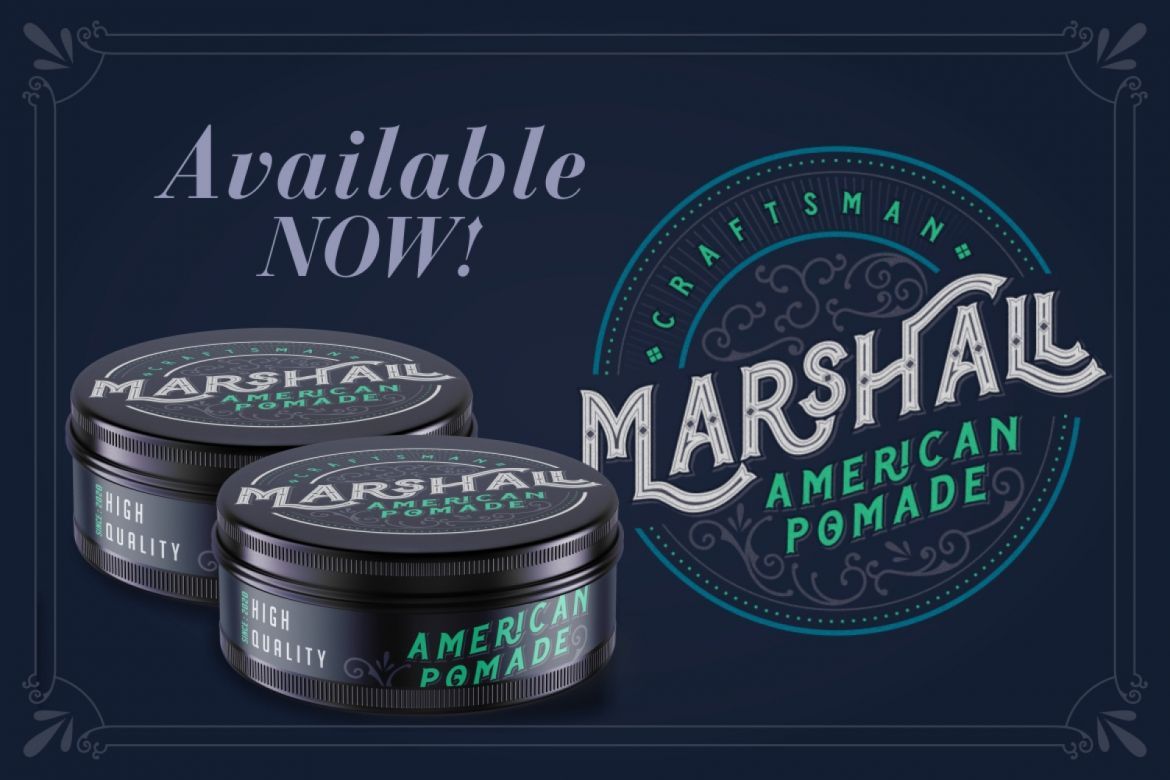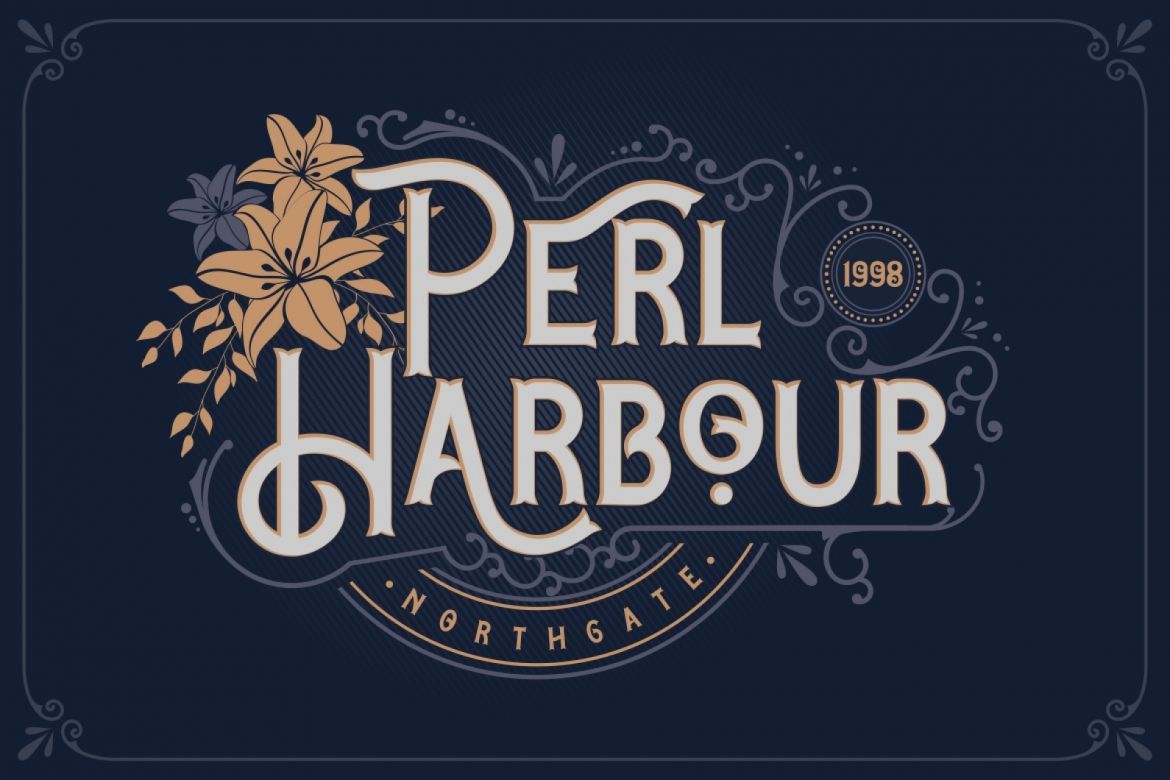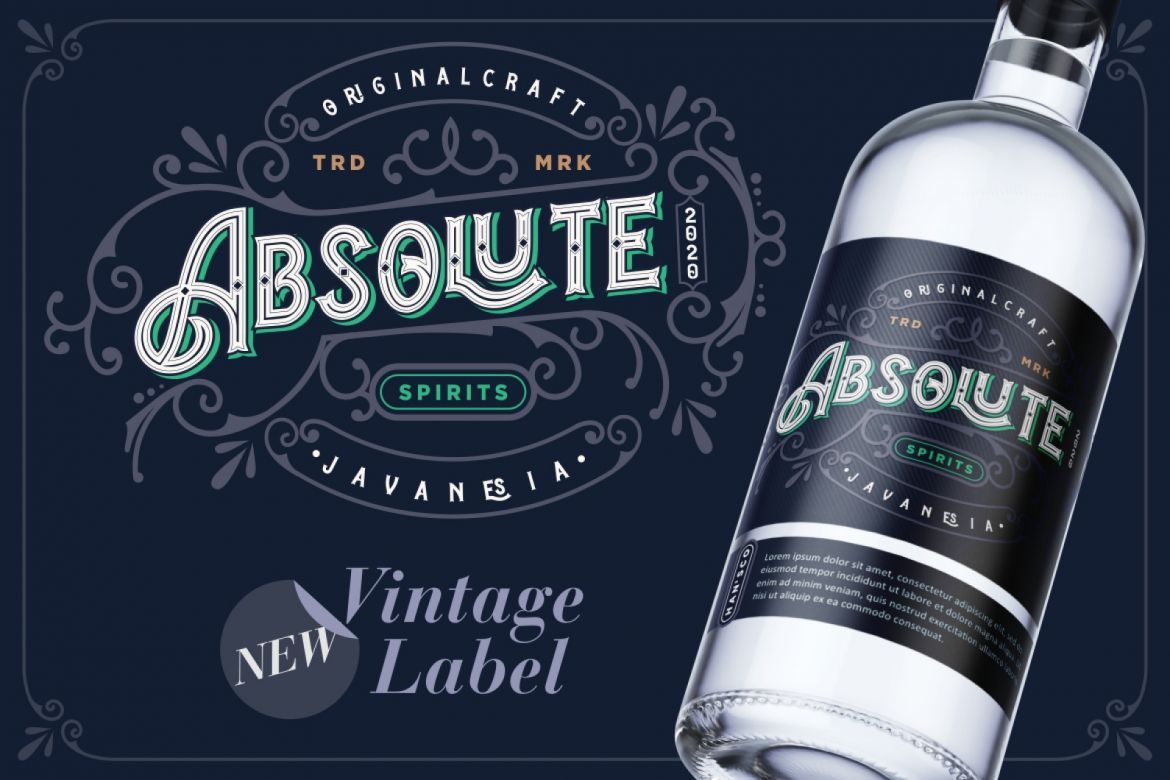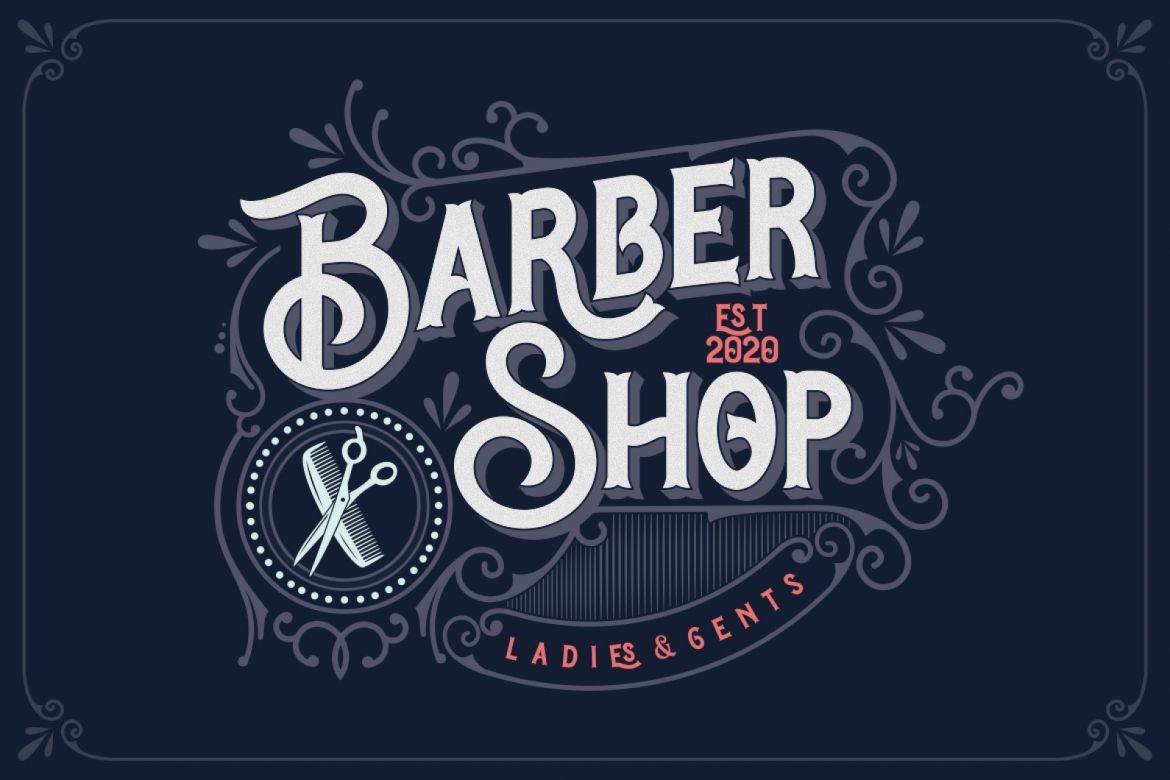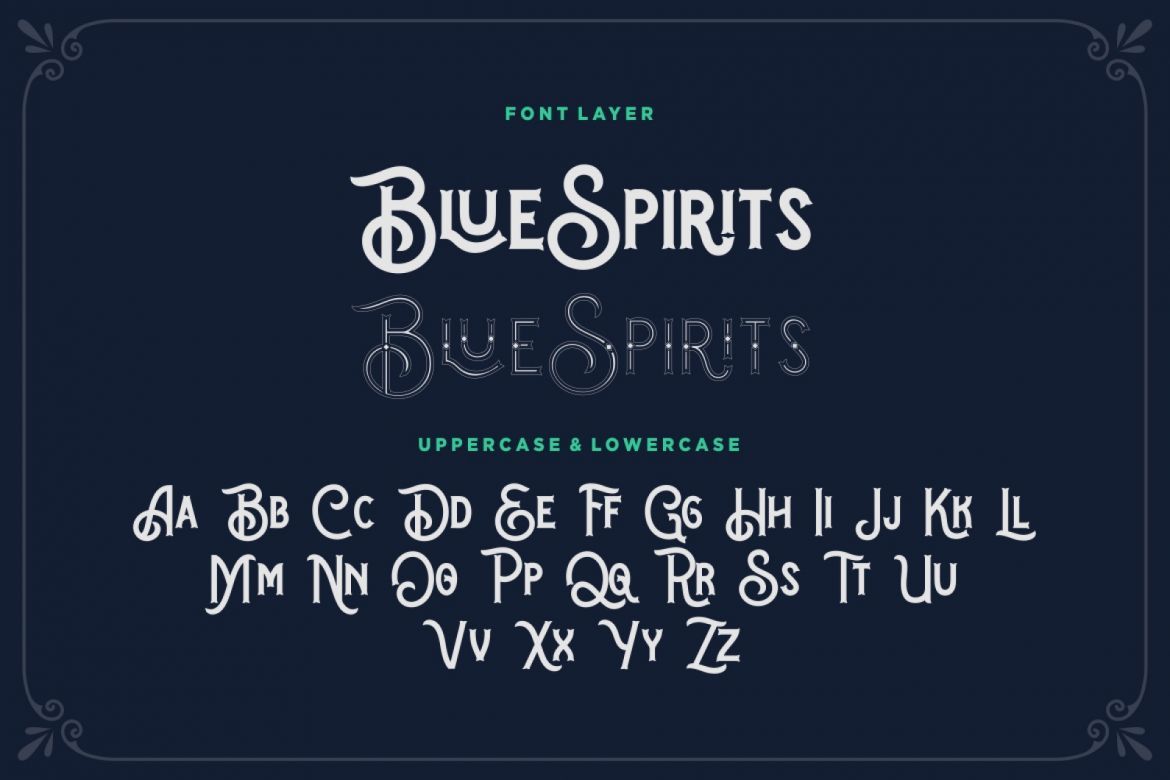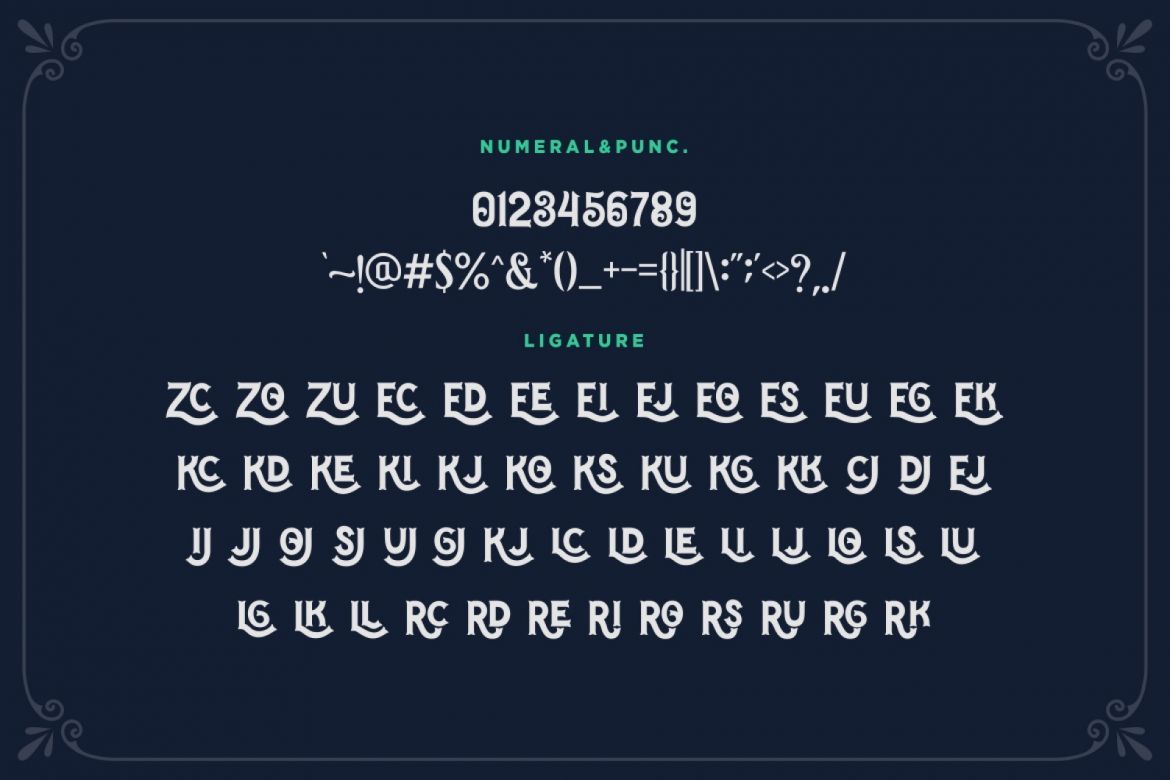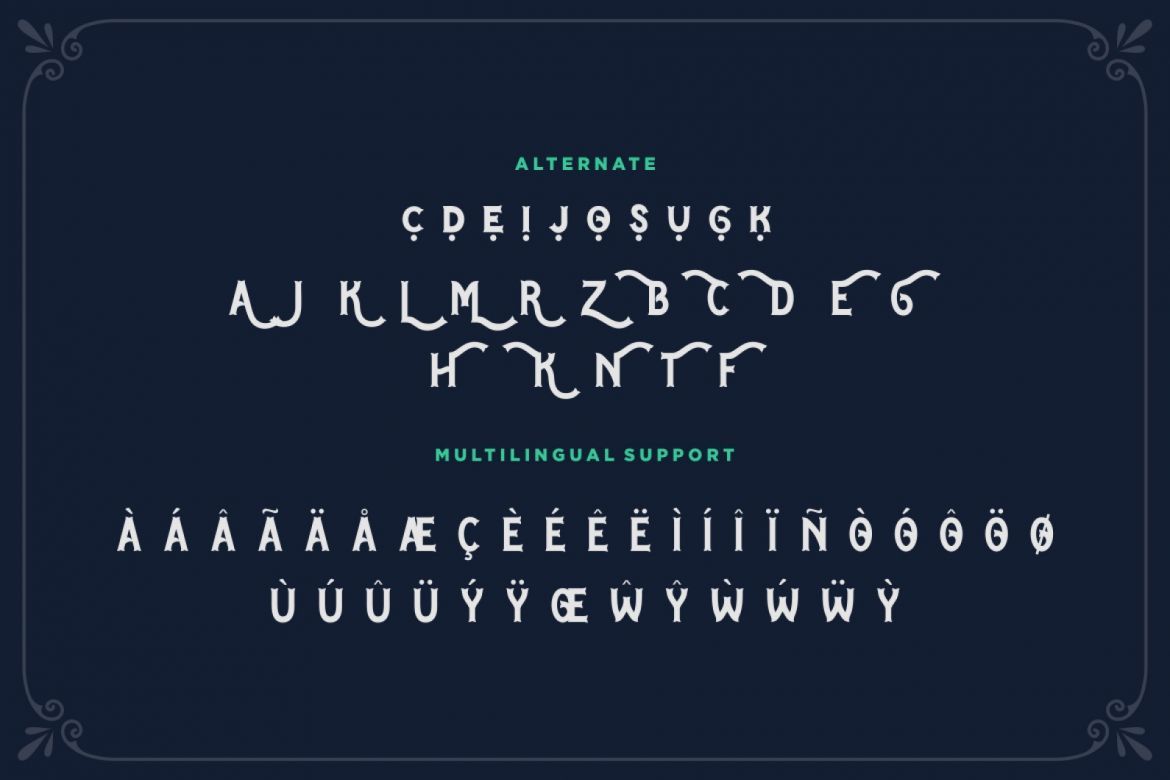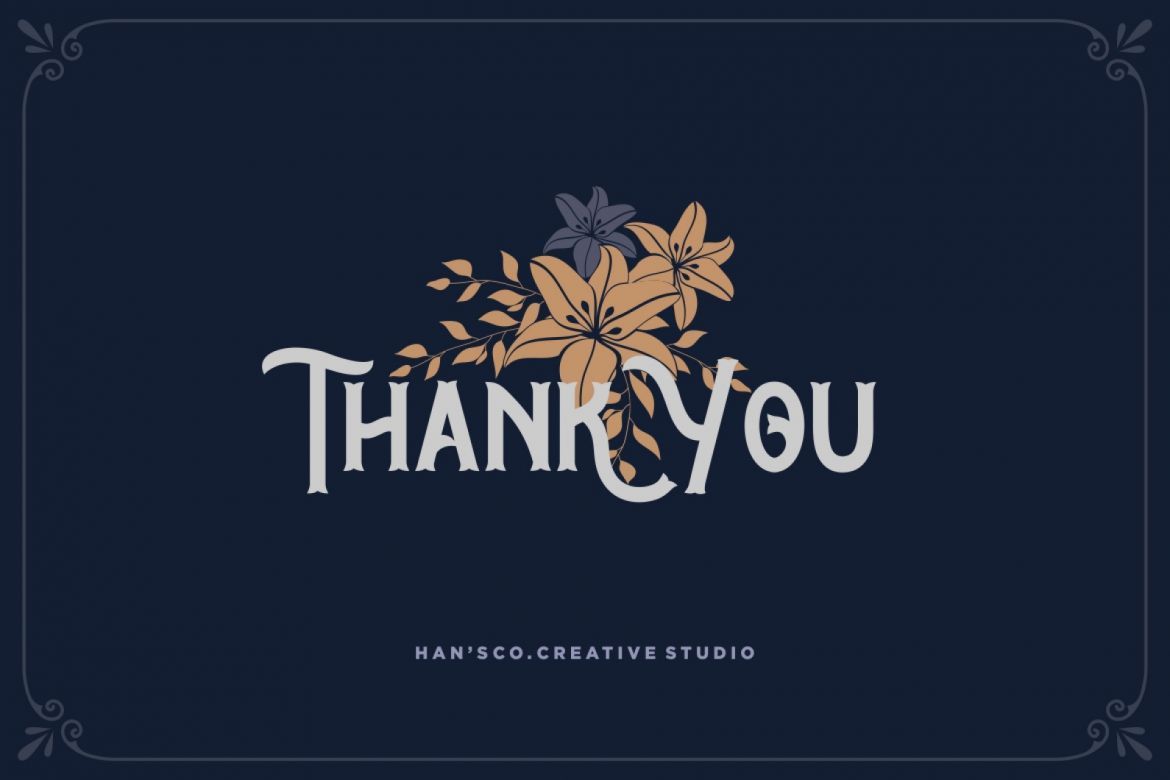
Blue Spirits Layered Font
BLUE SPIRITS FONT — Blue Spirits is a Vintage typeface font. This collection of font is perfect for personal branding or everything your project with vintage, retro, wild or old style. It was made with the intention of being used for product Logo like a pomade, coffe, barber brand or packaging label.
• available in 3 style font
• many alternate and support multilingual